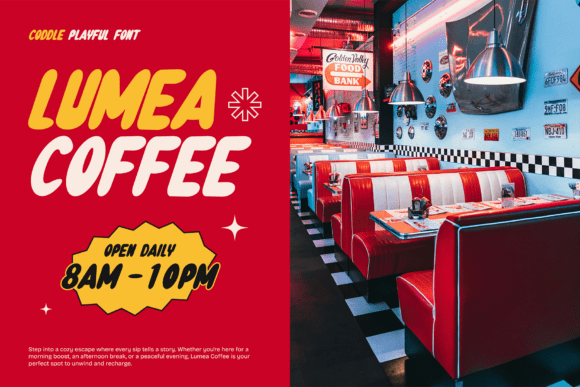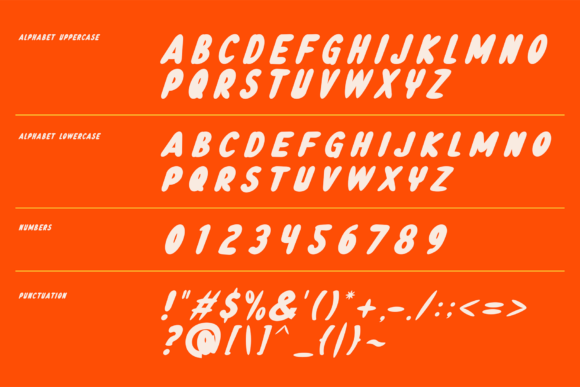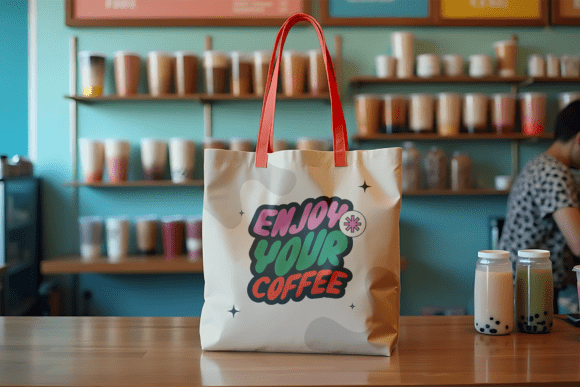
Introducing Coddle Font: The Ultimate Display Font for Creative Projects
Are you looking for a font that can add a dash of energy, joy, and creativity to your design projects? Look no further than Coddle Font, a bold and playful display font that’s perfect for making a statement. With its chunky letterforms, fun curves, and vibrant comic-style design, Coddle is the ideal choice for designers and crafters who want to create eye-catching posters, children’s books, packaging, merchandise, logos, and social media graphics.
The Retro Vibe with a Modern Twist
Coddle Font is a masterful blend of retro charm and modern style. Its layered 3D effect and bold presence give your text a cartoonish pop that’s sure to grab attention. The font’s chunky letterforms and fun curves evoke a sense of nostalgia, while its vibrant comic-style design brings a fresh and modern feel to your projects. Whether you’re designing for events, playful branding, or fun digital content, Coddle makes every word feel alive.
Coddle Font is an incredibly versatile font that can be used for a wide range of projects. Here are some ideal use cases for this amazing font:
- Retro posters and flyers: Add a touch of nostalgia to your posters and flyers with Coddle’s retro vibe.
- Comic and cartoon titles: Bring your comic and cartoon titles to life with Coddle’s bold and playful design.
- Cute branding and packaging: Use Coddle to create adorable branding and packaging that stands out on store shelves.
- Kids’ designs and storybooks: Coddle is perfect for designing engaging and fun content for kids.
- Social media posts and merchandise: Add a pop of personality to your social media posts and merchandise with Coddle’s vibrant design.
What Makes Coddle Font So Special?
Coddle Font has several features that make it a standout choice for designers and crafters:
- Bold and playful design: Coddle’s chunky letterforms and fun curves make it a bold and playful font that’s perfect for grabbing attention.
- Layered 3D effect: The font’s layered 3D effect gives your text a cartoonish pop that’s sure to delight.
- Vibrant comic-style design: Coddle’s vibrant comic-style design brings a fresh and modern feel to your projects.
- Easy to read: Despite its bold and playful design, Coddle is easy to read, making it perfect for use in a variety of contexts.
Tips for Using Coddle Font
Here are some tips for getting the most out of Coddle Font:
- Use it for headlines and titles: Coddle is perfect for use in headlines and titles, where its bold and playful design can really shine.
- Experiment with colors: Coddle’s vibrant design looks great in a variety of colors, so don’t be afraid to experiment and find the perfect hue for your project.
- Pair it with other fonts: Coddle can be paired with other fonts to create a unique and eye-catching design.
Coddle Font is a bold and playful display font that’s perfect for designers and crafters who want to add a dash of energy, joy, and creativity to their projects. With its chunky letterforms, fun curves, and vibrant comic-style design, Coddle is the ideal choice for a wide range of projects, from retro posters and flyers to cute branding and packaging. Whether you’re designing for events, playful branding, or fun digital content, Coddle makes every word feel alive. So why wait? Give Coddle Font a try today and see the difference it can make in your designs!